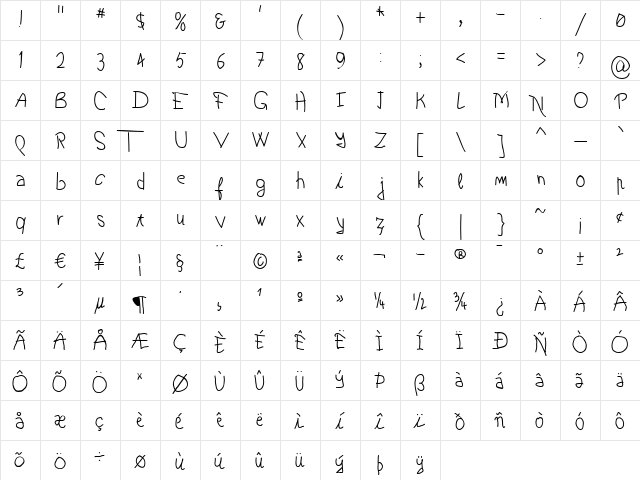
Boyscout Regular
| Foundry | Simone Wilkie |
Design Context for Boyscout Typeface
Boyscout takes a measured approach to typography — its balanced proportions and neutral character make it a reliable workhorse for both digital and print work.